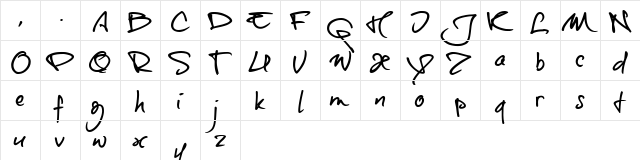
onetrickTony Regular
| Foundry | JOEBOB graphics - JJW van der Ham |
| Designer | JOEBOB graphics - JJW van der Ham |
Design Context for onetrickTony Typeface
onetrickTony is a composed and adaptable typeface that performs quietly and consistently across a wide range of design contexts.